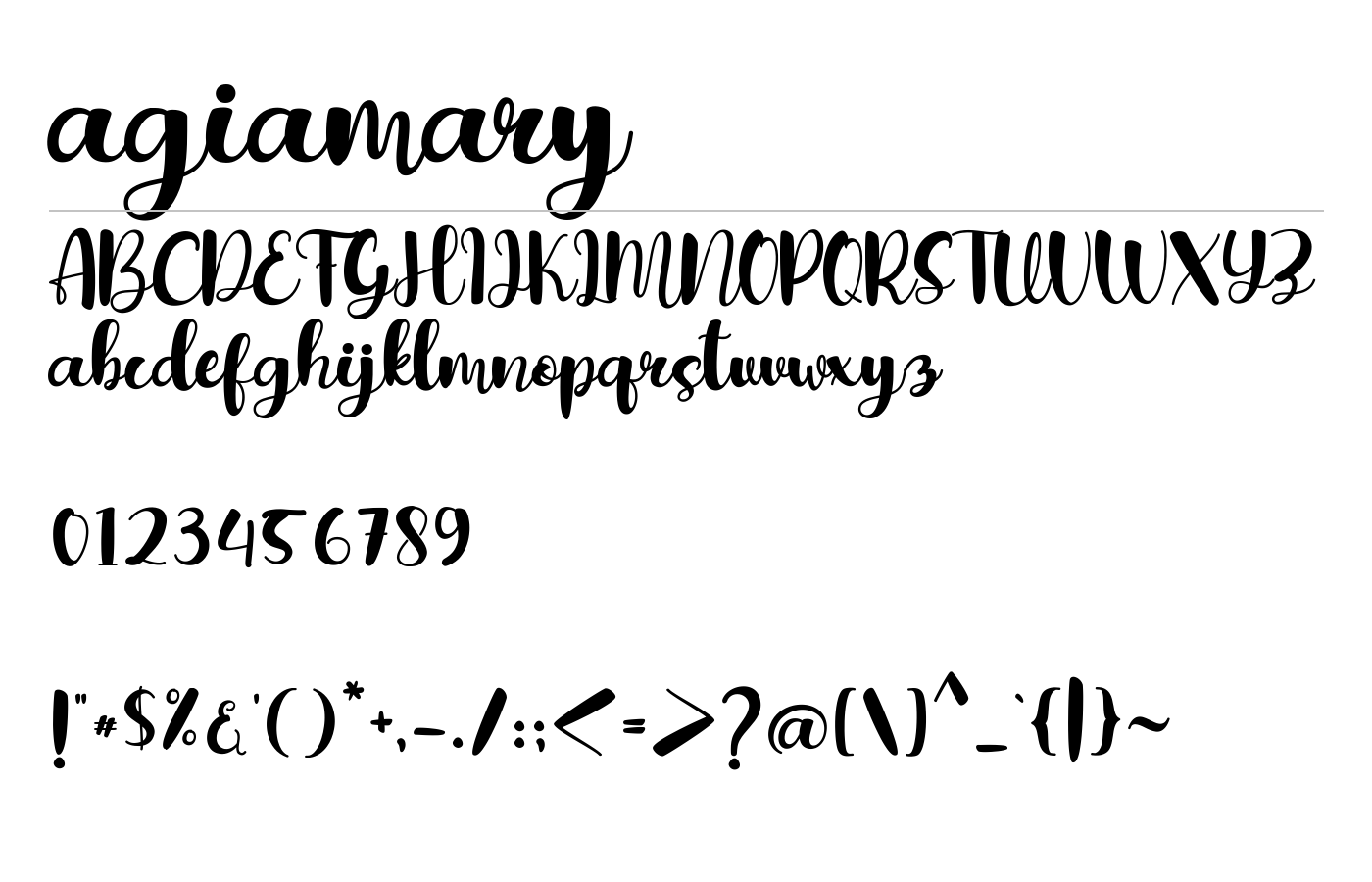
Agiamary is a lively script font that combines a bold, brush-like texture with playful, flowing letterforms. Its smooth curves and varied stroke widths give it a friendly, handcrafted feel, making it perfect for creative branding, invitations, or any design needing a personal, expressive touch. This font works well in headline or logo use where a warm, approachable style is desired.
agiamary Font
About agiamary Font